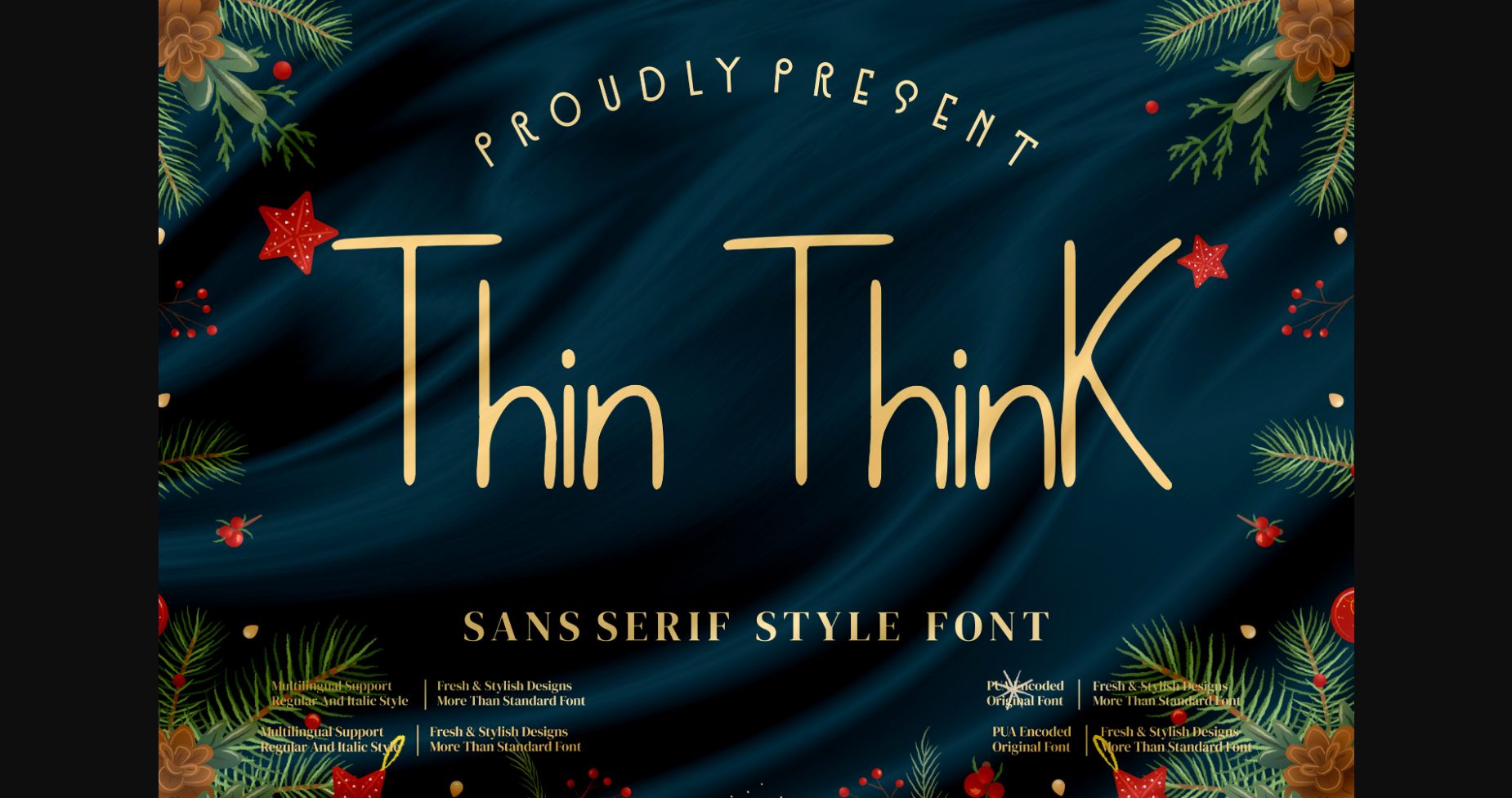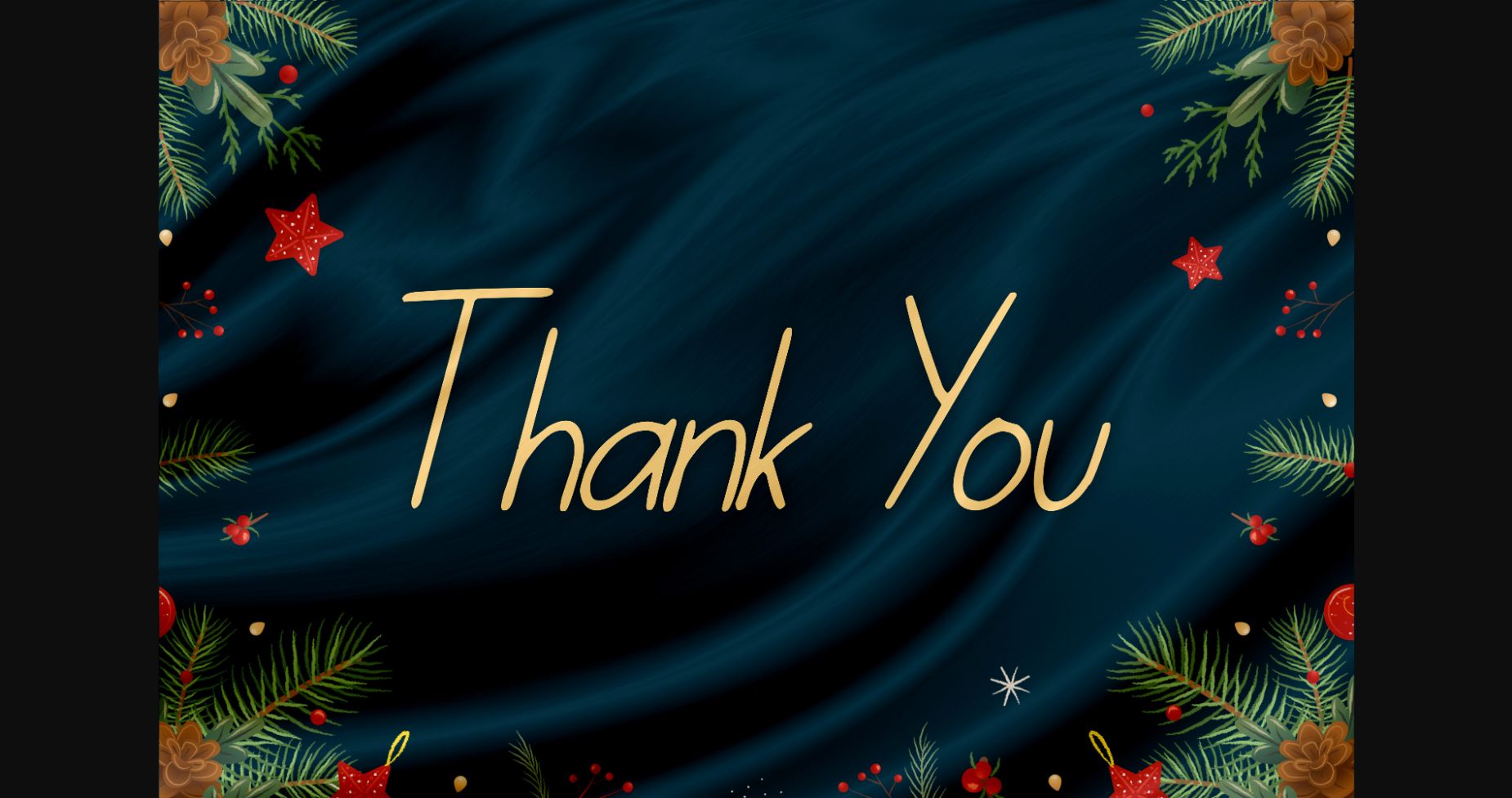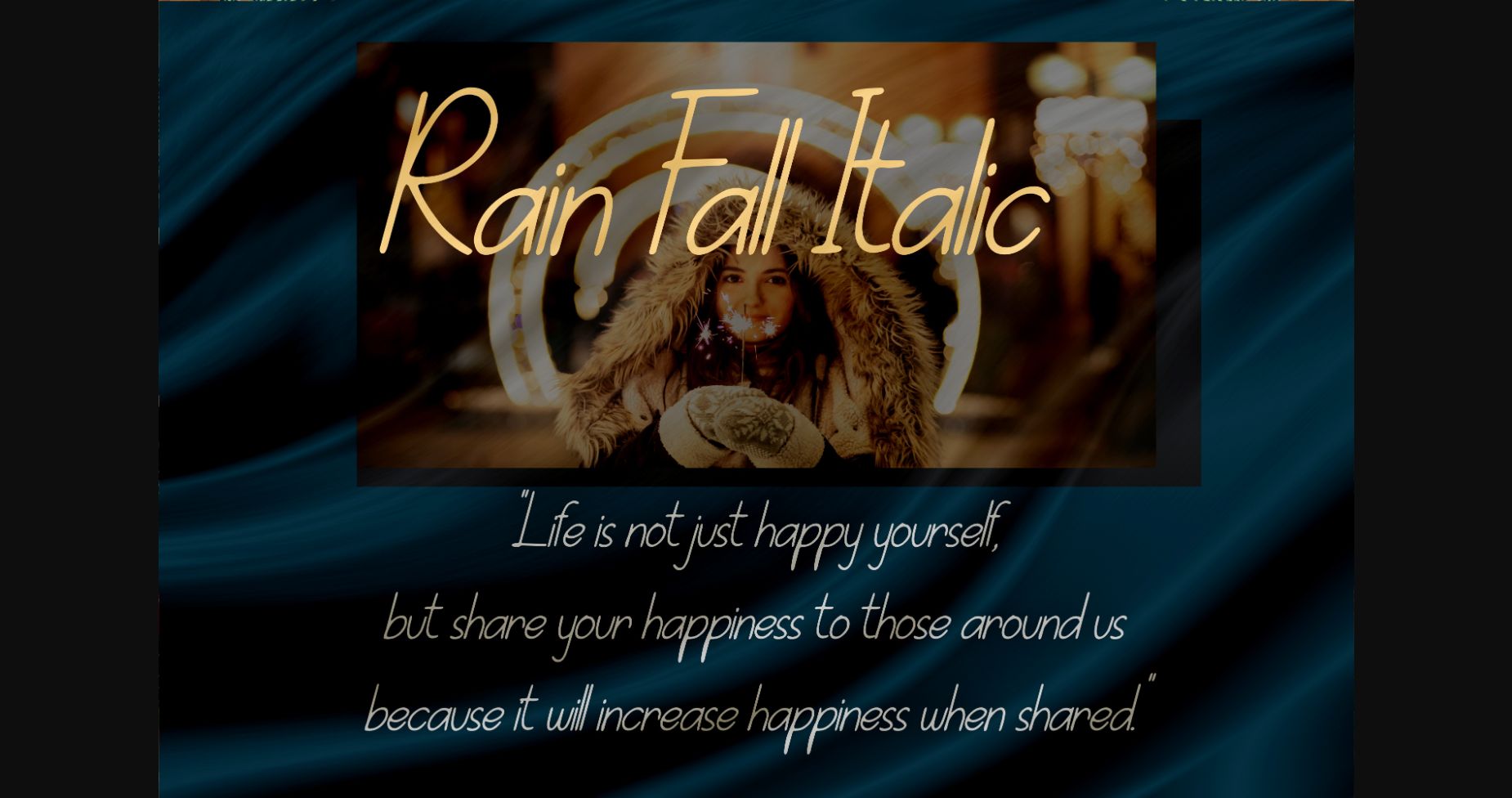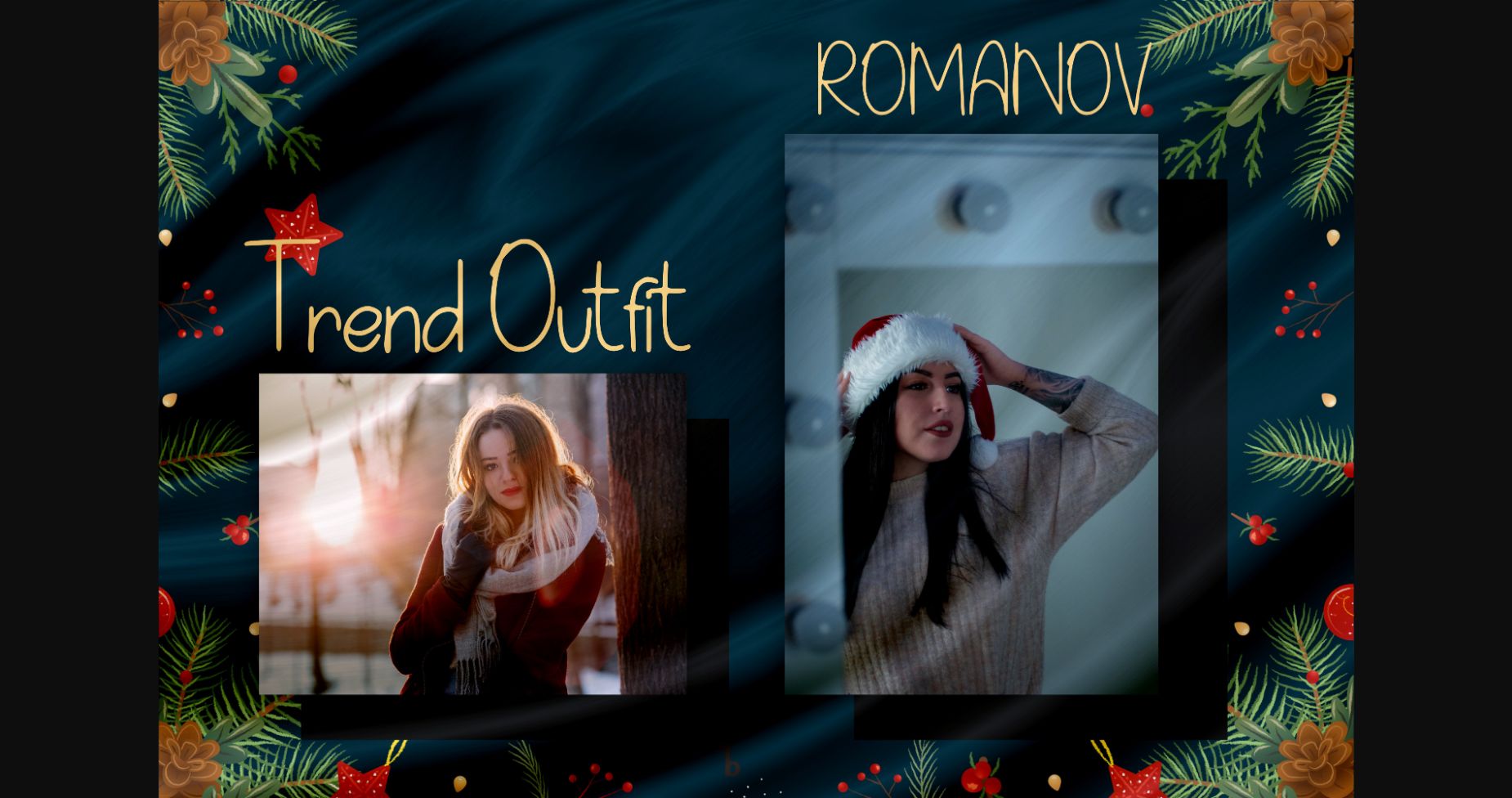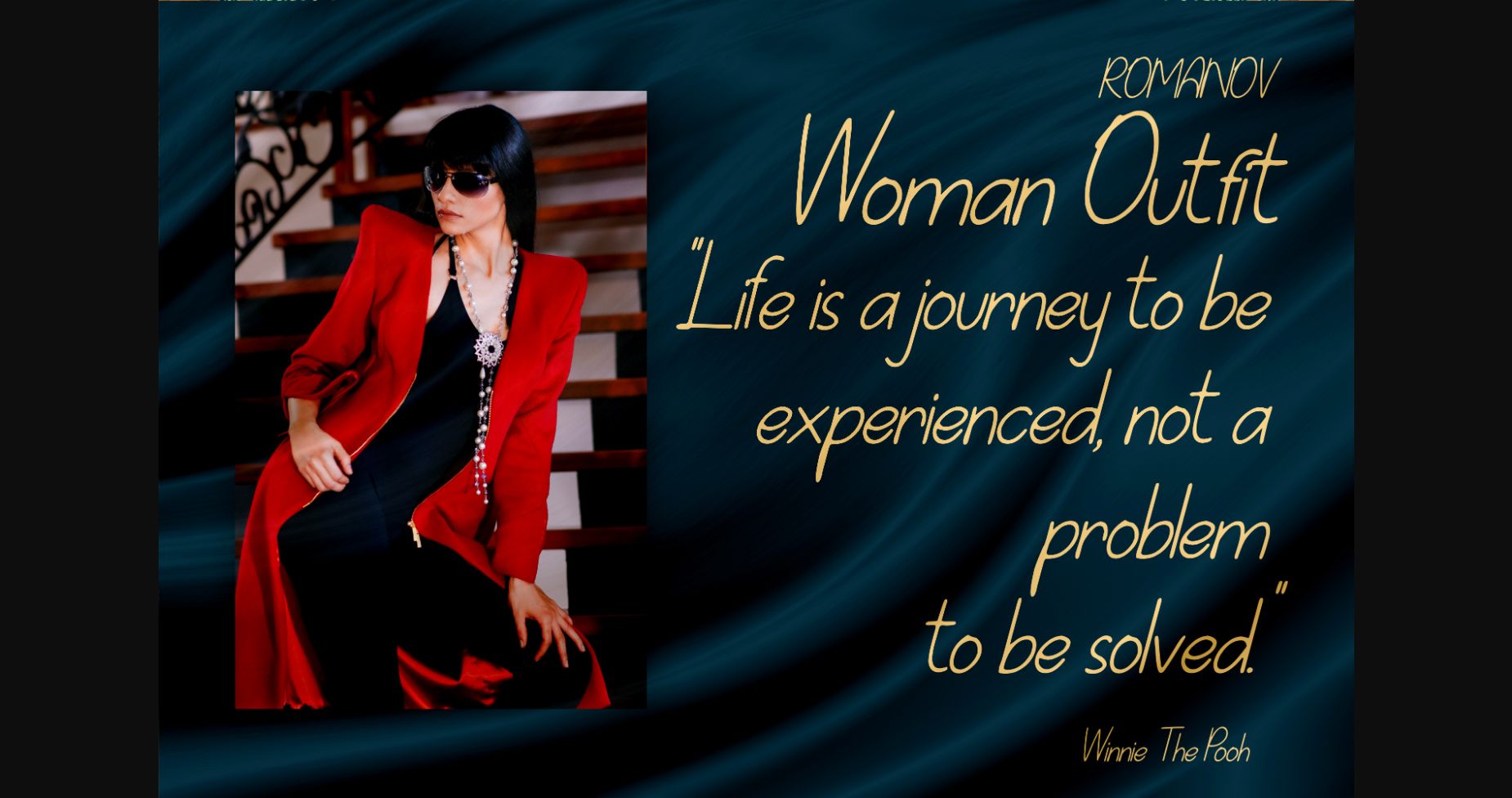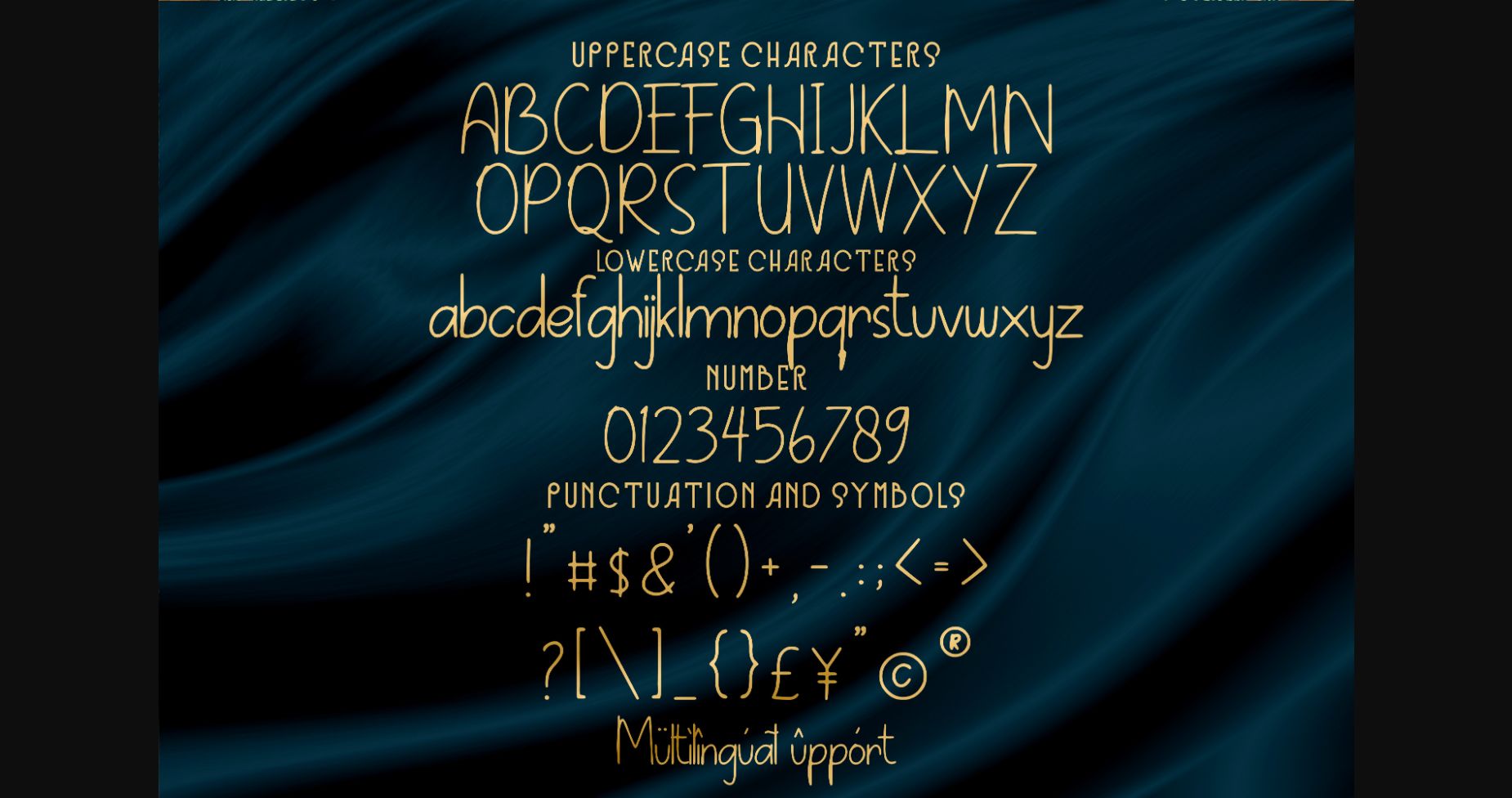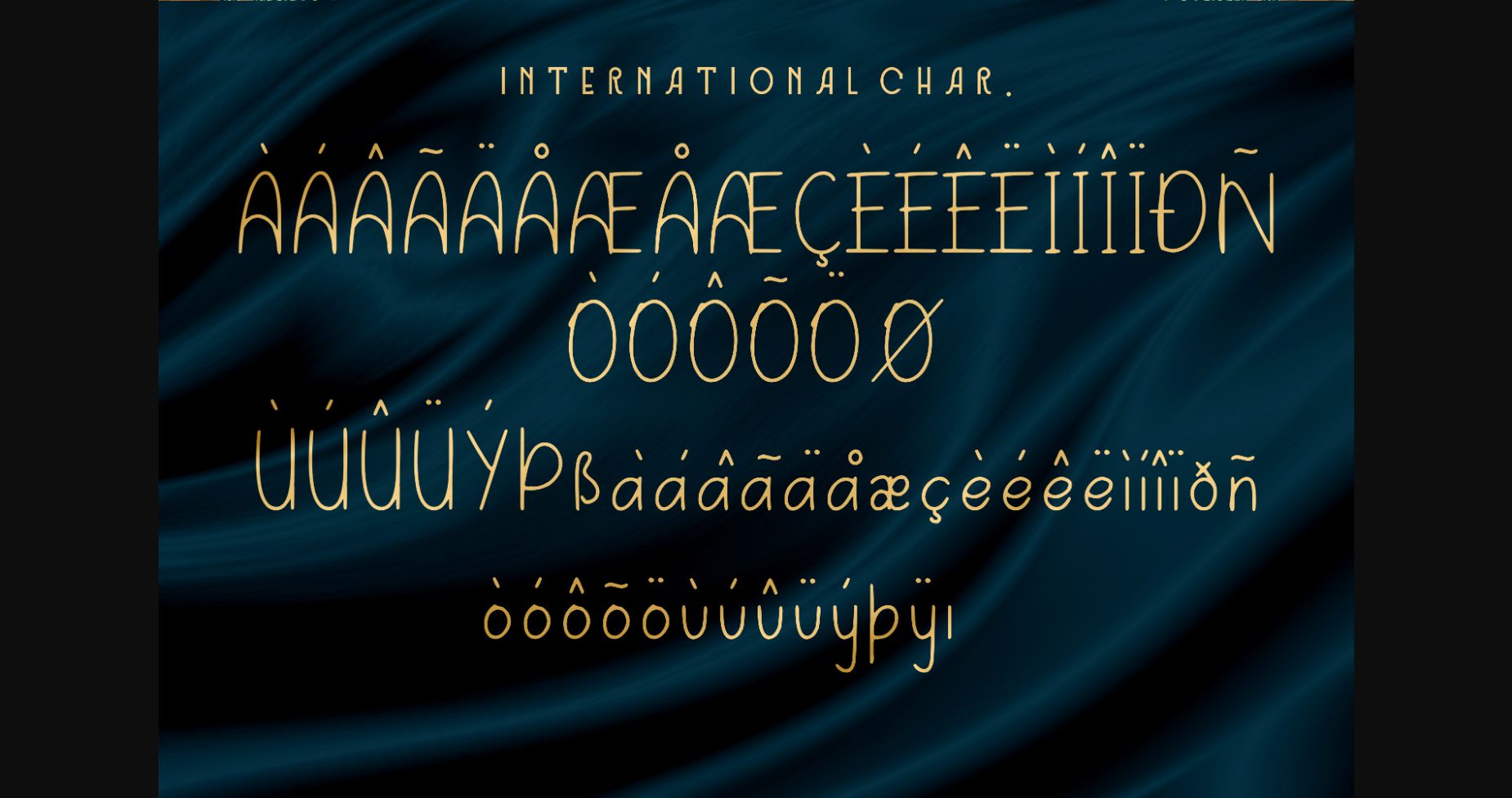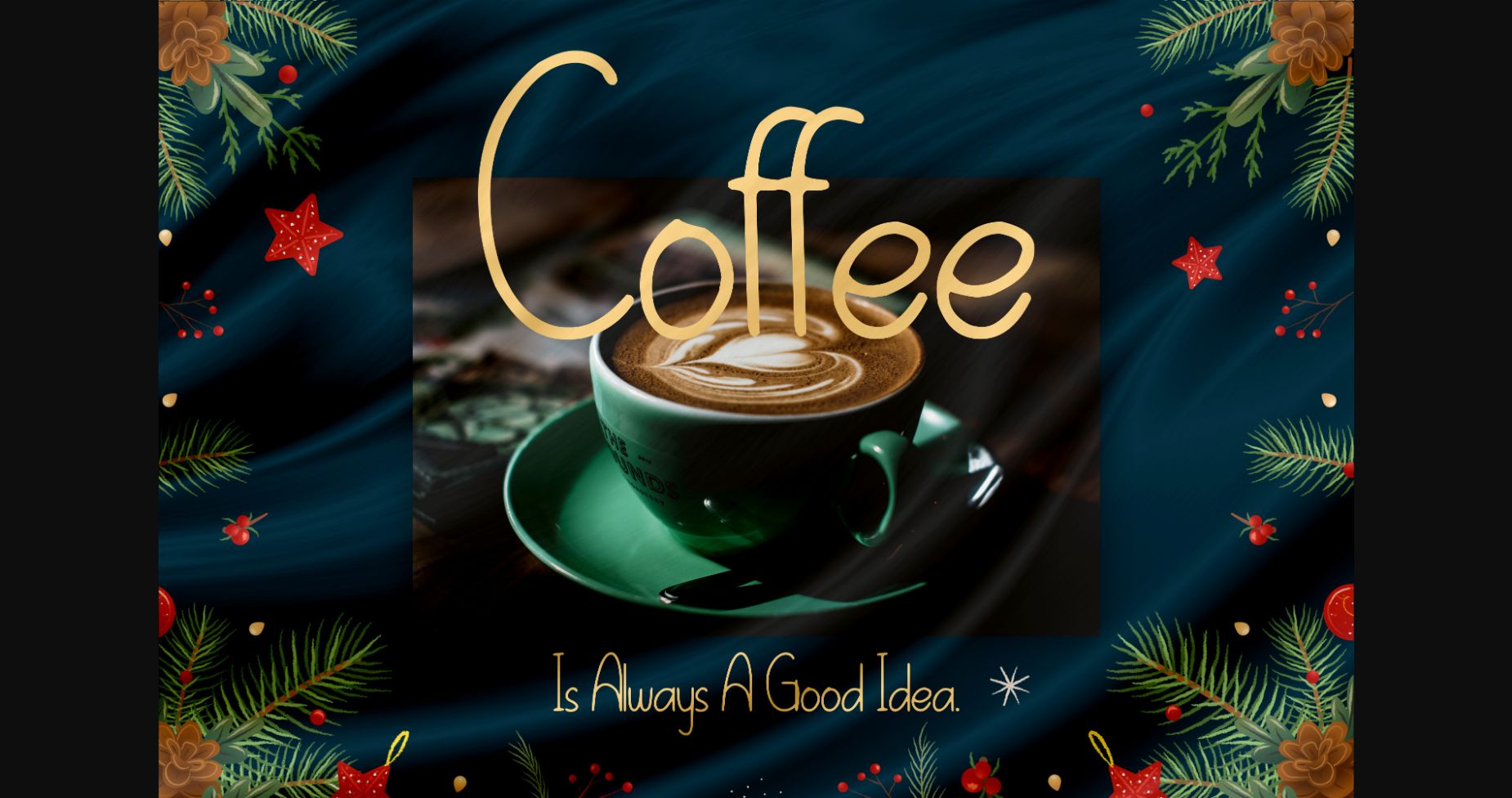
Thin Think Font
About Thin Think Font
Thin Think is a delicate and thin lettered sans serif font. It looks great on logos, branding projects, homeware designs, product packaging, mugs, quotes, posters and a variety of luxury projects that need a premium signature taste.